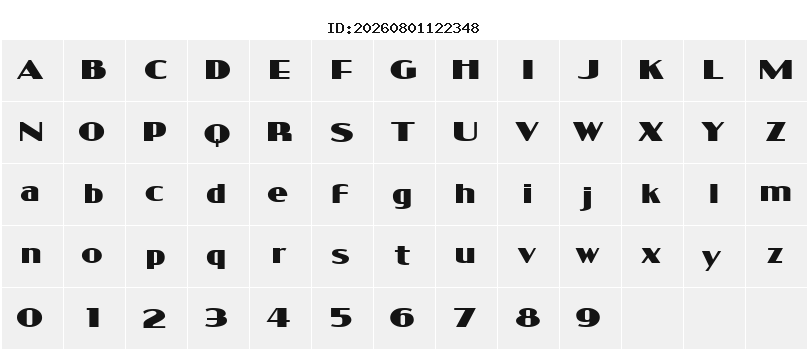
LHF Bell Boy Preview
• Font Name: LHF Bell Boy
• Full Font Name: LHF Bell Boy
About LHF Bell Boy.ttf
LHF Bell Boy.ttf is a modern, elegant sans-serif font designed for ultimate readability and visual harmony. Perfect for branding, headlines, web design, and print materials.